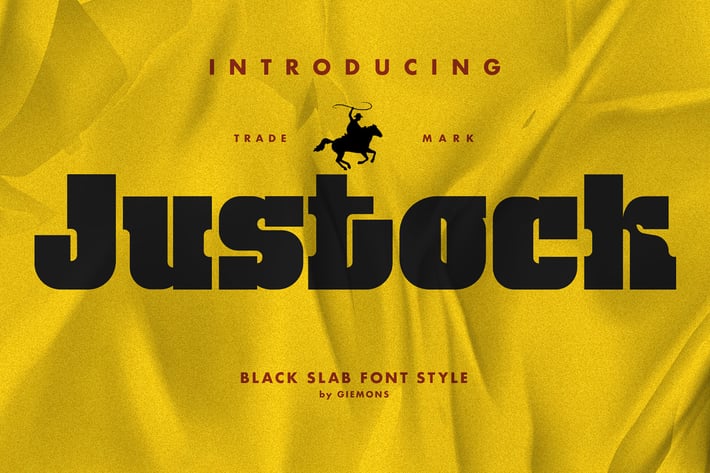
Justock Font
a JUSTOCK Font with a BLACK SLAB shape style, combines classic modern styles to make it look very trendy and more standout.. easy to use for branding, logo, digital marketing, and any more.
uppercase & lowercase